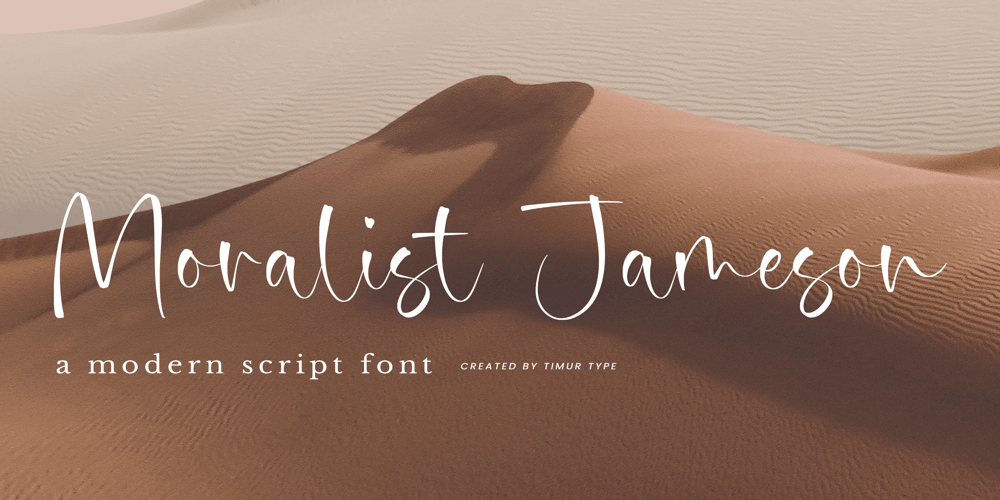
Moralist Jameson
Moralist Jameson font
Moralist Jameson Font Family was designed by Wara Sigit Tri Pamungkas and published by Timurtype. Moralist Jameson contains 1 styles and family package options. Introducing by Timur typeProudly Present, Moralist Jameson A Handwritten FontMoralist Jameson is perfect for product packaging, branding project, megazine, social media, wedding, or just used to express words above the background.Moralist Jameson also multilingual support.Enjoy the font.Thank you!